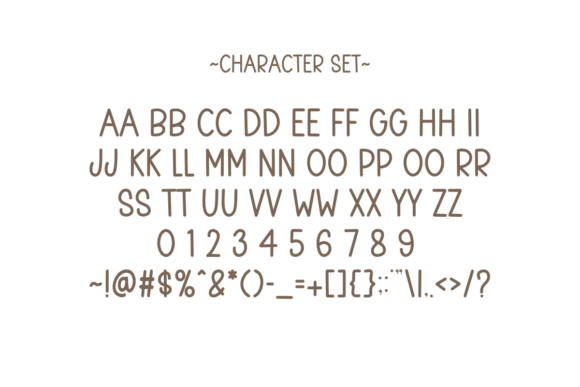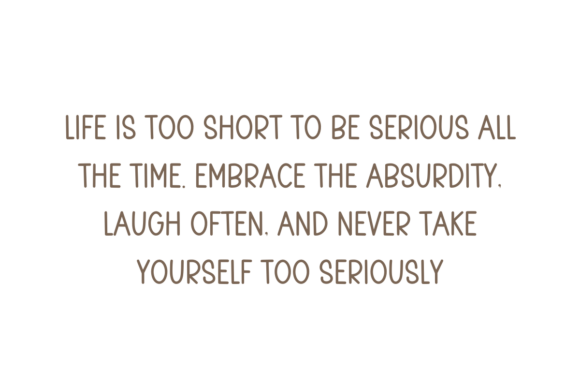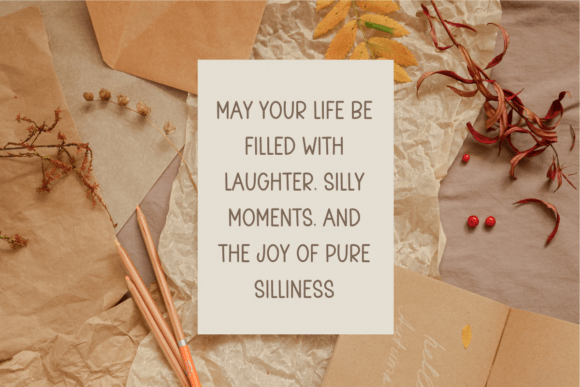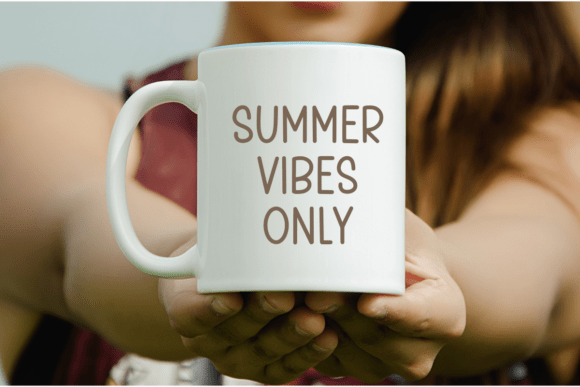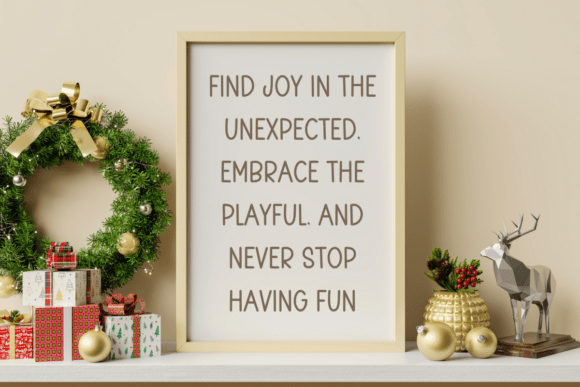
Introducing Design Seamless Font: The Perfect Playful Handwritten Font for Crafters and Designers
Are you a crafter, designer, or maker looking for a font that can add a personal touch to your DIY projects? Look no further than Design Seamless, a playful handwritten font that’s perfect for a variety of creative applications. In this article, we’ll explore the features and benefits of Design Seamless, and show you how it can elevate your crafts, planners, KDP, stickers, greeting cards, and more.
What is Design Seamless Font?
Design Seamless is a unique and charming handwritten font that’s designed to be versatile and easy to use. Its cute and friendly style makes it perfect for a wide range of projects, from crafty DIY creations to professional designs. Whether you’re a seasoned designer or a beginner crafter, Design Seamless is an excellent choice for anyone looking to add a personal touch to their work.
Key Features of Design Seamless Font
- Playful Handwritten Style: Design Seamless has a playful, handwritten style that’s perfect for adding a personal touch to your projects.
- Versatile: This font is suitable for a wide range of applications, including crafts, planners, KDP, stickers, greeting cards, and more.
- Cute and Friendly: Design Seamless has a charming and approachable style that’s sure to delight your audience.
- Perfect for Cricut, Sublimation, and DIY Projects: This font works great with Cricut, sublimation, and other creative DIY projects.
Use Cases for Design Seamless Font
Design Seamless is an incredibly versatile font that can be used in a variety of creative projects. Here are some ideas to get you started:
- Crafts: Use Design Seamless to add a personal touch to your handmade crafts, such as knitted items, jewelry, or home decor.
- Planners and Organizers: Add a playful touch to your planners, journals, and organizers with Design Seamless.
- KDP and Digital Products: Use Design Seamless to create eye-catching covers and interiors for your KDP and digital products.
- Stickers and Labels: Design Seamless is perfect for creating cute and colorful stickers and labels for your products or gifts.
- Greeting Cards and Invitations: Add a personal touch to your greeting cards, invitations, and other paper crafts with Design Seamless.
Benefits of Using Design Seamless Font
So why choose Design Seamless for your creative projects? Here are just a few benefits of using this amazing font:
- Easily Readable: Design Seamless is clear and easy to read, making it perfect for body text and headings.
- Customizable: You can use Design Seamless in a variety of contexts, from digital projects to print materials.
- Time-Saving: With Design Seamless, you can create professional-looking projects in no time, thanks to its pre-designed characters and glyphs.
- Unique and Creative: Design Seamless has a distinctive style that’s sure to set your projects apart from the crowd.
Tips and Tricks for Using Design Seamless Font
To get the most out of Design Seamless, here are a few tips and tricks to keep in mind:
- Experiment with Colors and Textures: Try pairing Design Seamless with different colors, textures, and patterns to create unique and eye-catching designs.
- Mix and Match with Other Fonts: Combine Design Seamless with other fonts to create interesting and dynamic typography.
- Pay Attention to Kerning and Tracking: Adjust the kerning and tracking of Design Seamless to ensure that your text looks professional and polished.